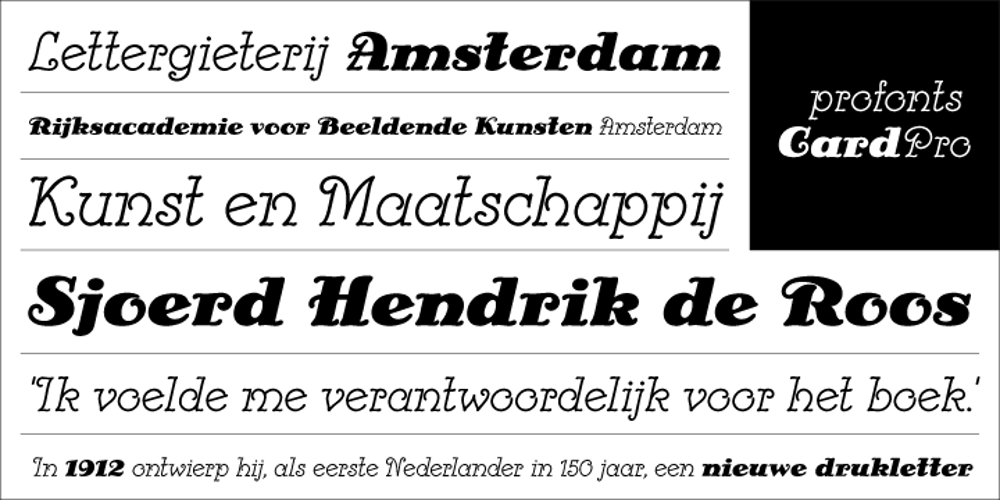
Card
Card font
Card Font Family was designed by Ralph M. Unger and published by profonts. Card contains 2 styles and family package options. Card Pro is a revival typeface inspired by the design of the Ella Cursief font from the Dutch type designer and artist Sjoerd Hendrik de Roos, better known as S.H. de Roos. The original type face Ella Cursief was released in 1916 by Lettergieterij Amsterdam where S.H. de Roos was type director from 1907 until 1941. The achievement of S.H. de Roos for the Dutch type design is highly remarkable. In 1912 he released the typeface Hollandsche Medi�val which was the first Dutch made typeface for 150 years, numerous type designs followed.